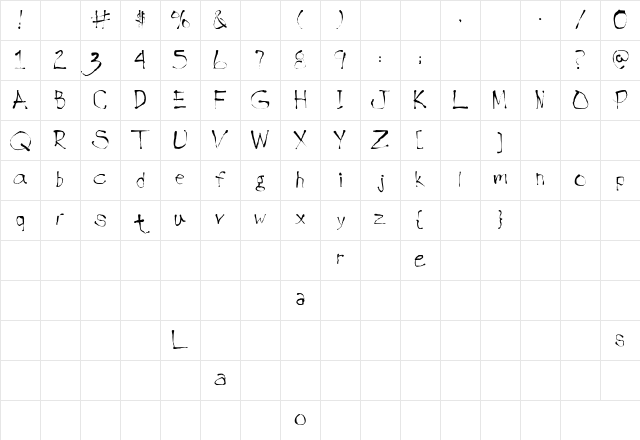
Puccini-Slob Regular
Design Context for Puccini-Slob
Puccini-Slob is a composed and adaptable typeface that performs quietly and consistently across a wide range of design contexts.